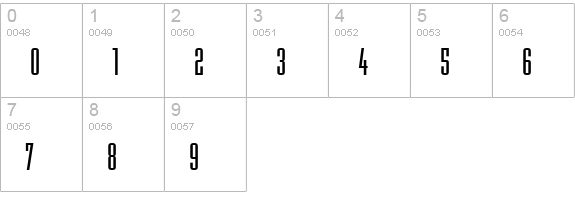
Mekanik LET Plain: Font Details
Mekanik LET Plain is a sleek and modern font that brings a touch of sophistication to any design project. Its clean lines and sharp angles give it a futuristic feel, making it perfect for tech-related designs or branding materials. The font is versatile and can be used for both headings and body text, adding a professional touch to any layout. One of the best things about Mekanik LET Plain is that it is completely free to download. You can easily access this stylish font at FontsMarket.com, where you can enhance your design work without any cost. With Mekanik LET Plain, you can elevate your projects with a contemporary and polished look that will impress your audience.